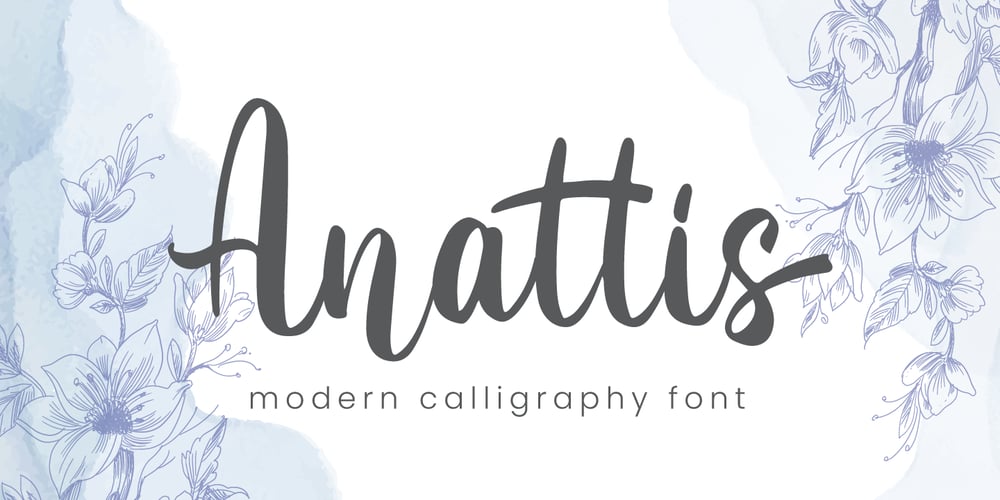
Anattis Font Family was designed by Fadli Ramadhan Iskandar and published by Attype Studio. Anattis contains 1 styles and family package options. Anattis is lovely modern calligraphy font inspired by beauty natural handwriting What’s included:- Anattis.otf- Include Stylistic set 1- Ligatures- Multilingual Support—Hope you enjoy with our font!Attype Studio